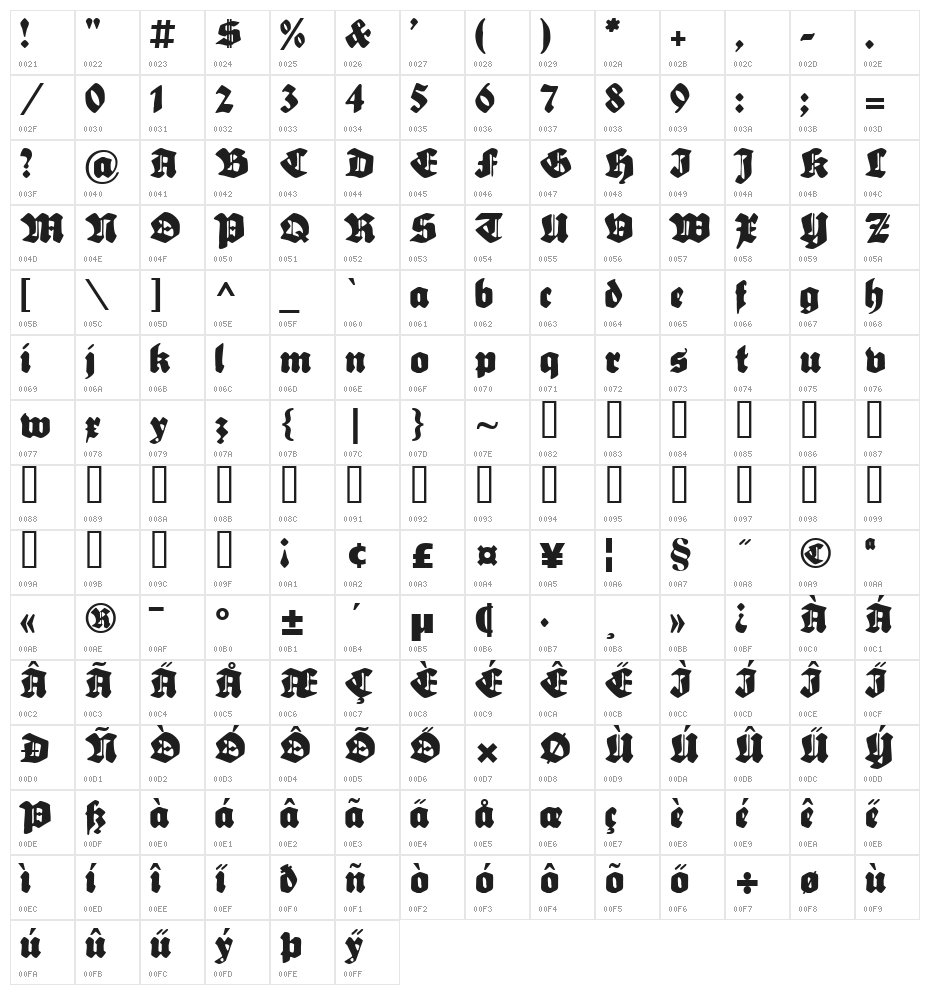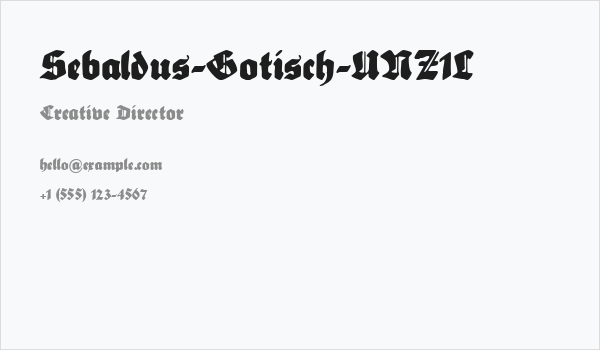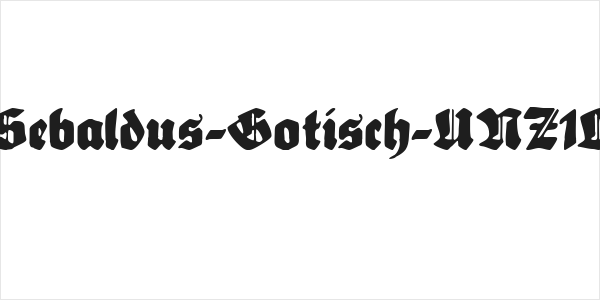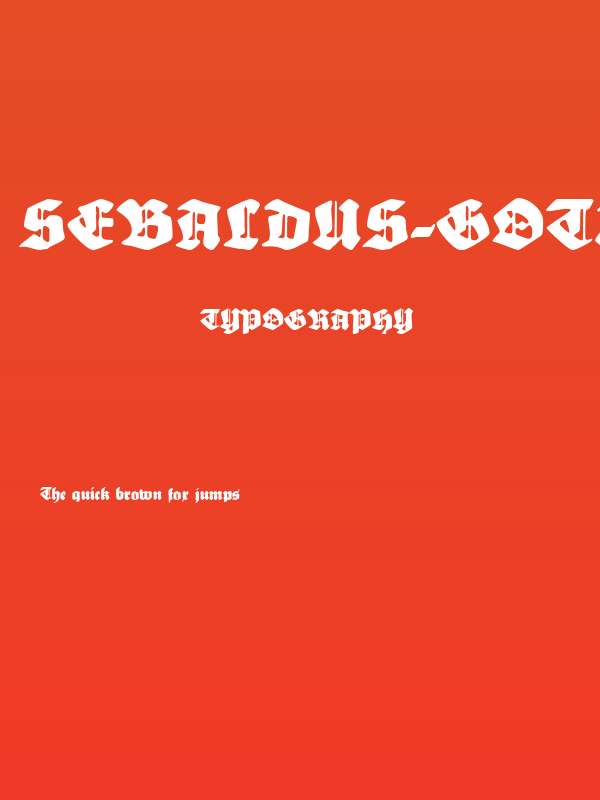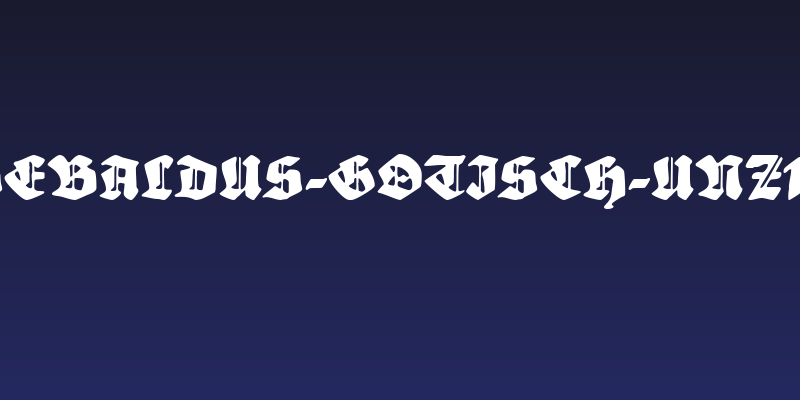
Sebaldus-Gotisch-UNZ1L Font
Sebaldus-Gotisch-UNZ1L Description
This font embodies the traditional and intricate style of blackletter typography, characterized by its ornate and angular letterforms. The uppercase letters exhibit sharp, pointed edges and elaborate serifs, while the lowercase letters maintain a consistent flow with distinctive curves and flourishes. The numbers are bold and maintain the same gothic aesthetic, ensuring uniformity across all characters. Special characters are designed with the same attention to detail, enhancing the font's cohesive appearance. This font is ideal for projects that require a historical or medieval touch, offering a dramatic and bold presence.
| Use Case | Headlines, Logos, Decorative text |
| Proposed Projects | Perfect for historical documents, medieval-themed designs, book covers, and decorative posters. |